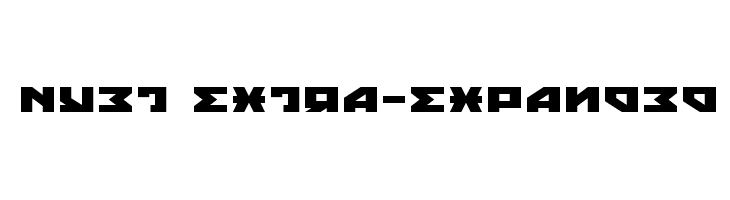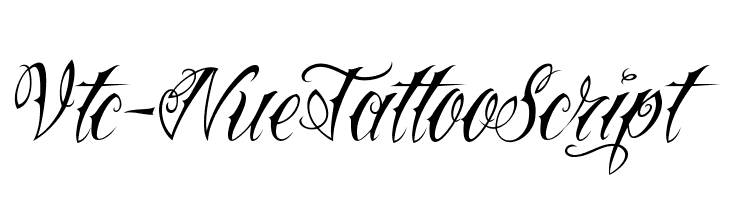
A bold, dripping font with a playful yet edgy style.
A bold, distressed font with a rugged, industrial appearance.
A bold, italicized font with angular, geometric letterforms.
A halftone, crystalline font with a futuristic and digital aesthetic.
A bold, pixelated font with a retro, digital aesthetic.
A playful, bold font with snow-like dots, perfect for festive designs.
An elegant and decorative script font with ornate letterforms.
A bold, industrial font with a mechanical, three-dimensional style.
A traditional blackletter font with intricate detailing and dramatic flourishes.
A modern, geometric font with rounded edges and uniform stroke width.